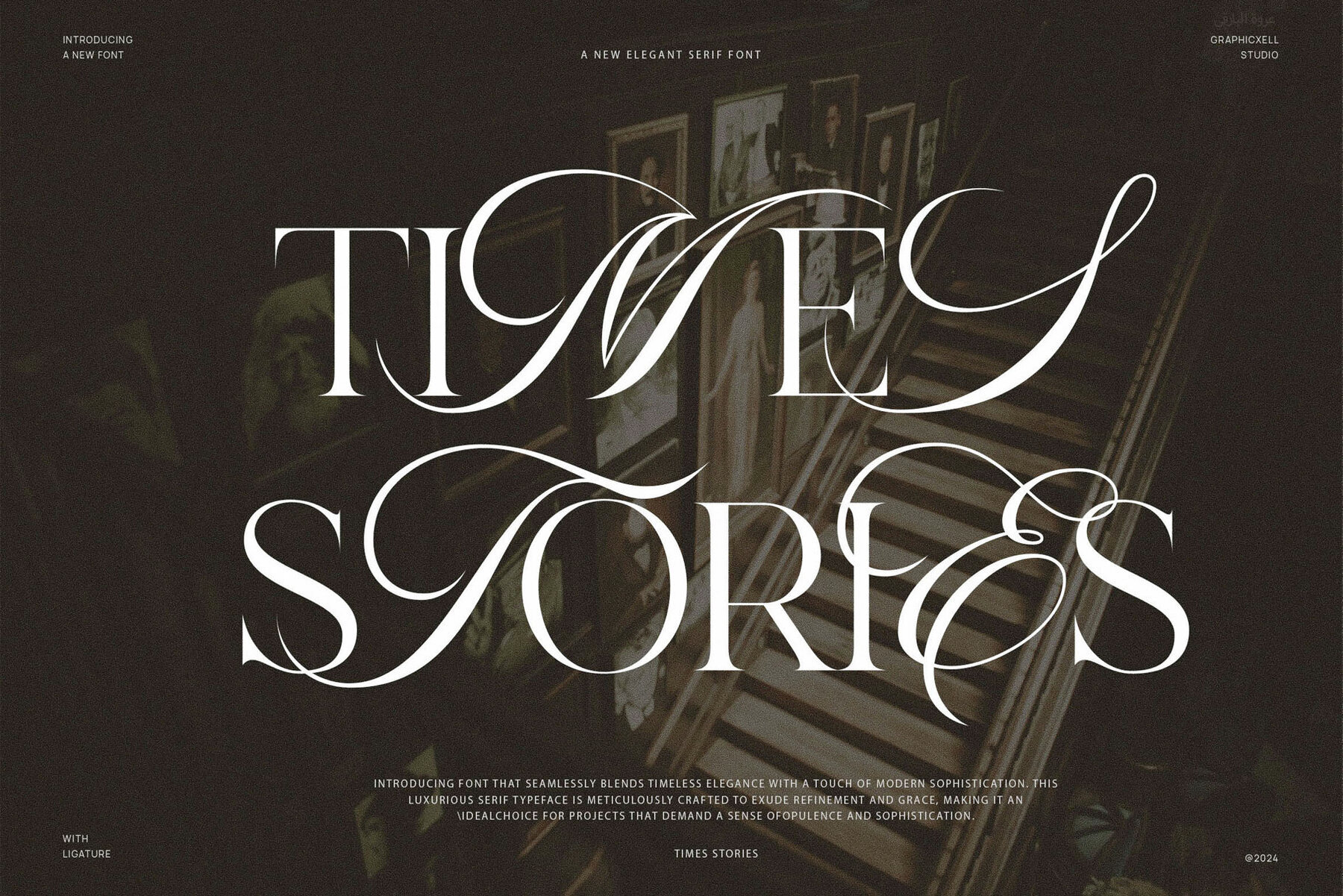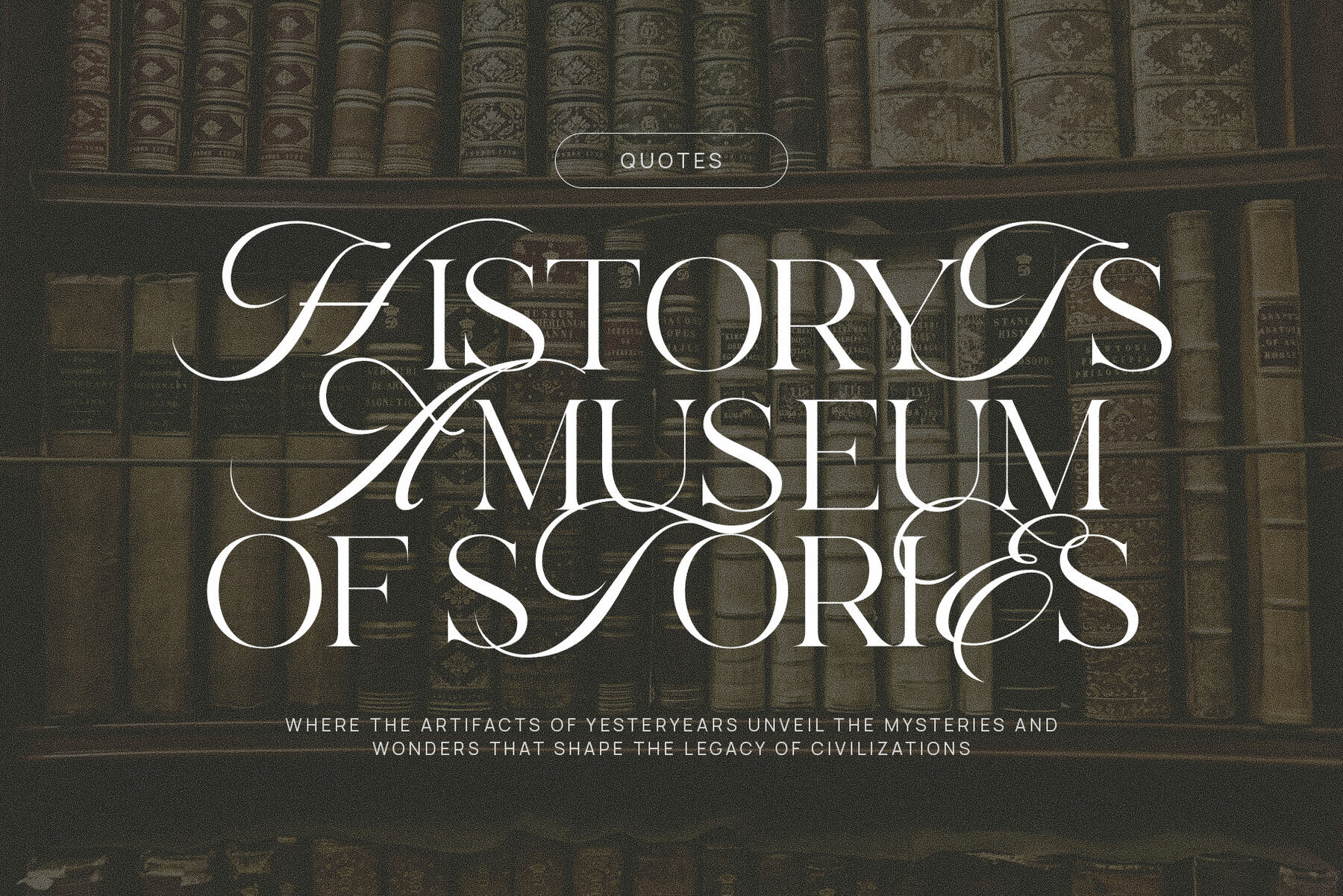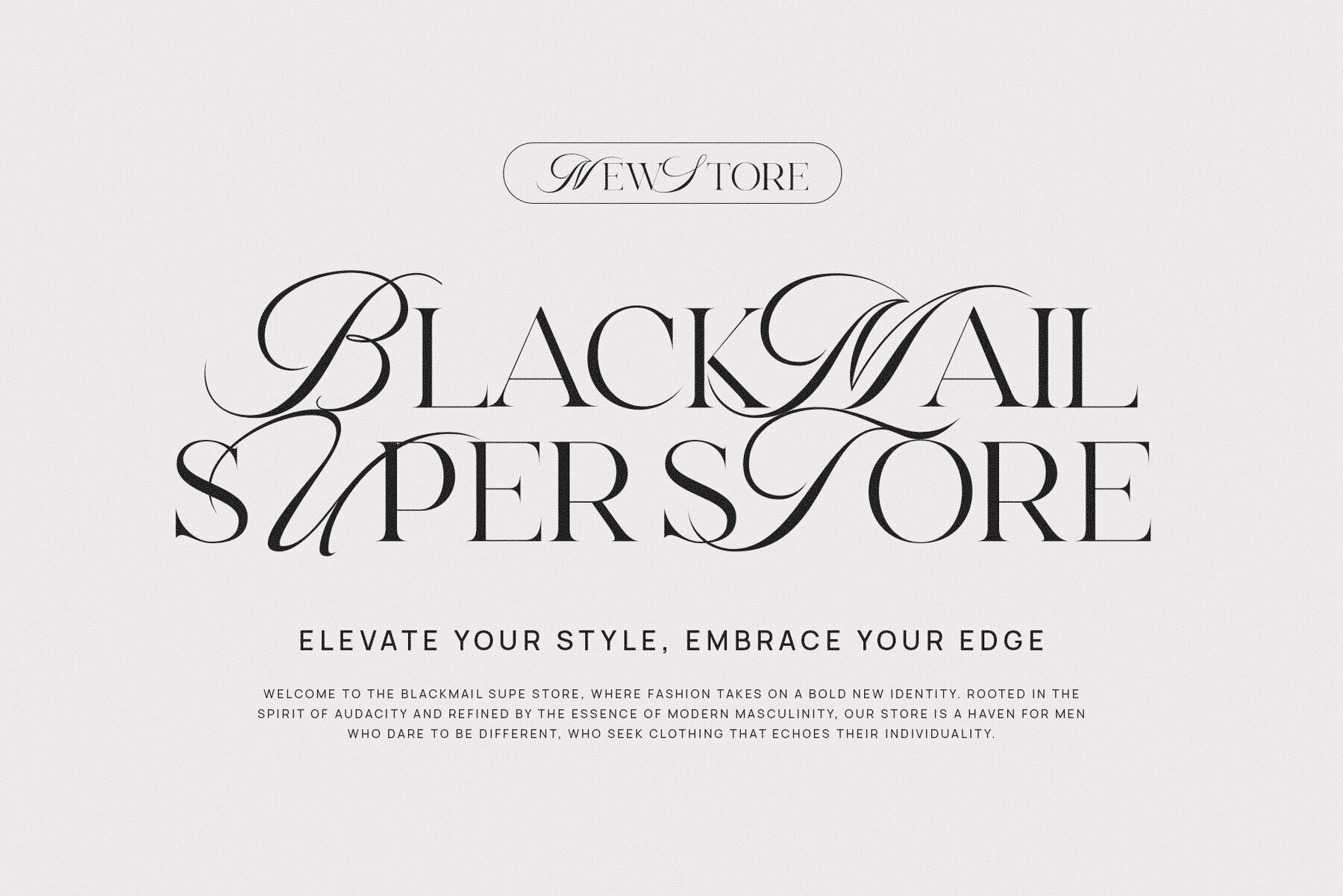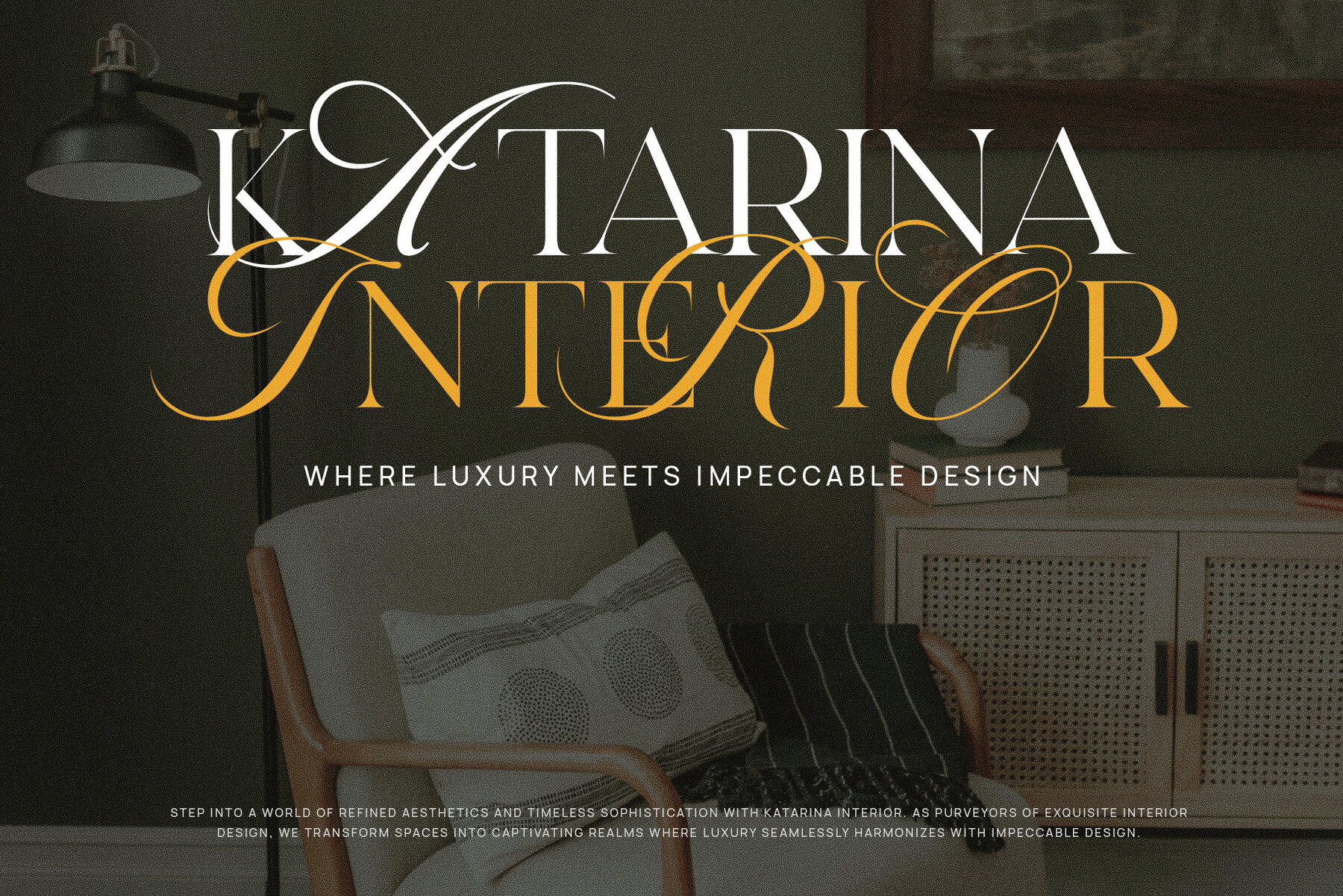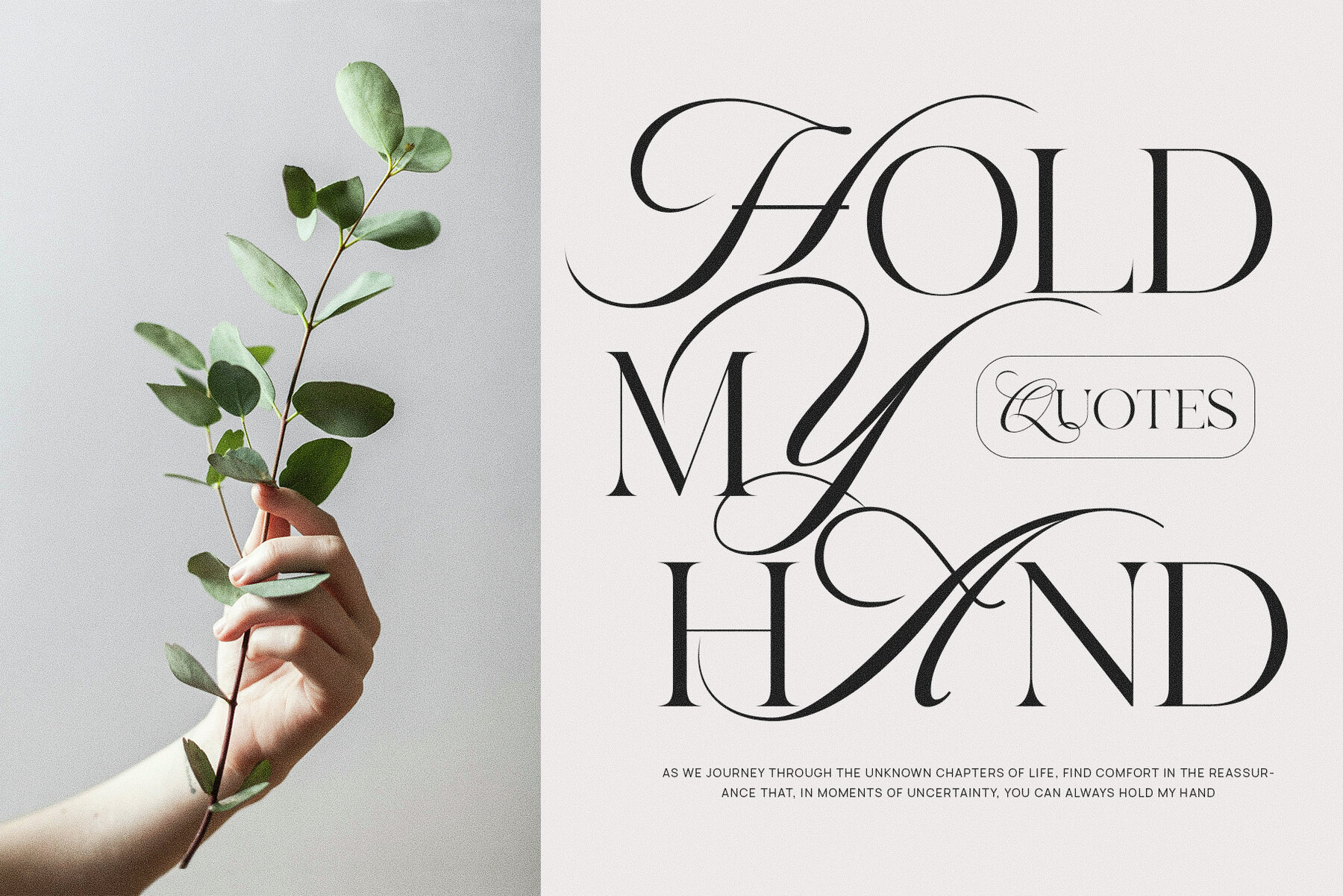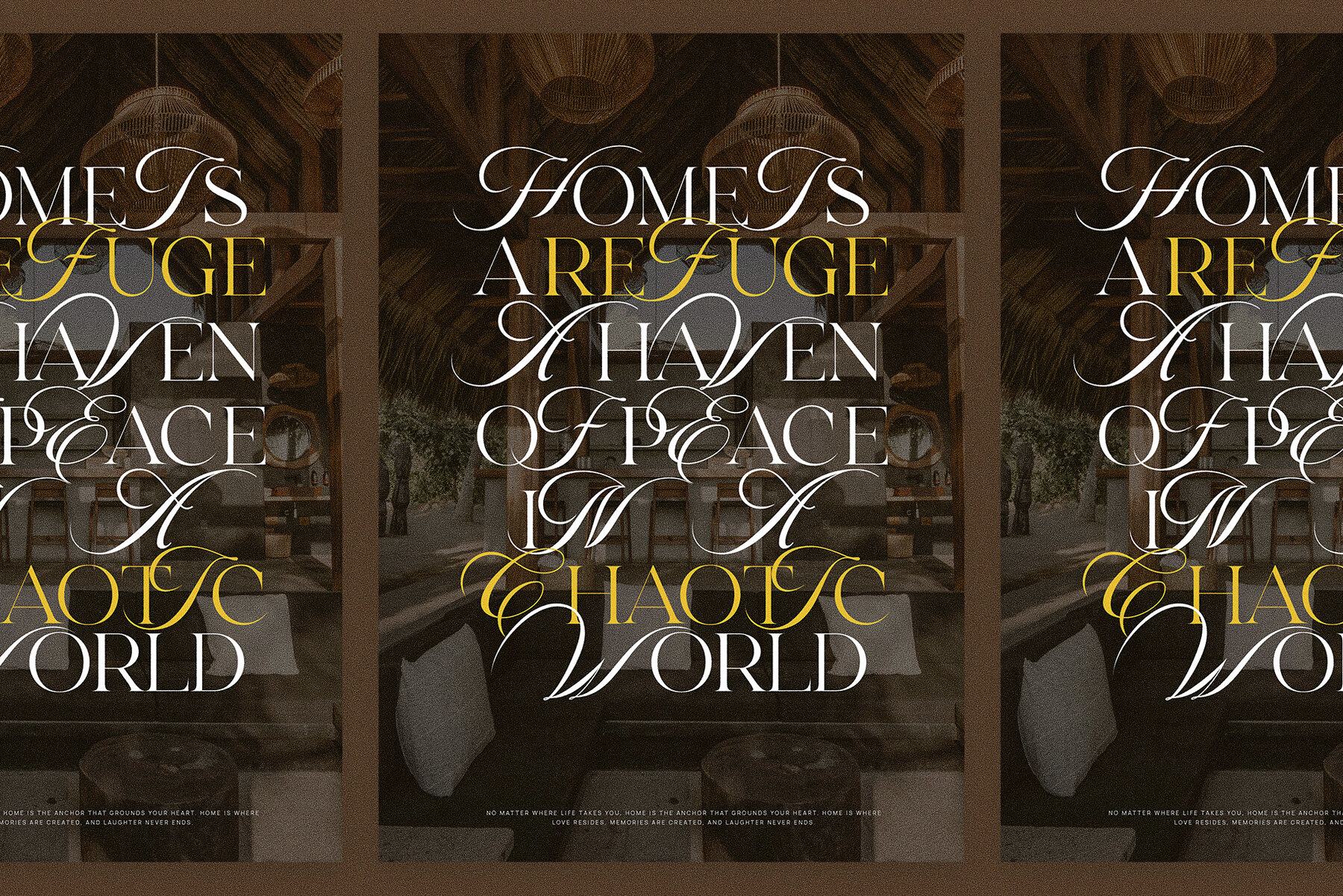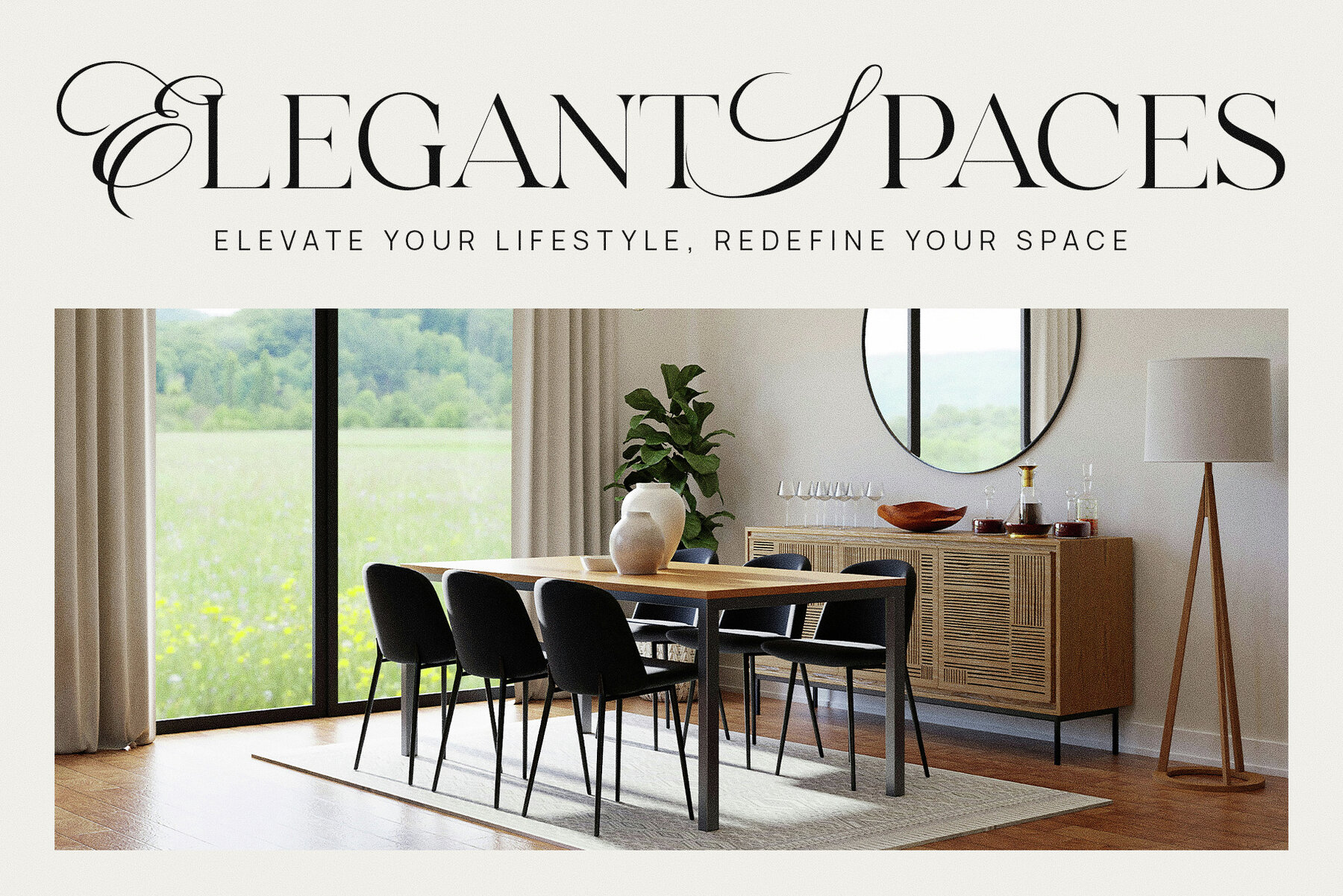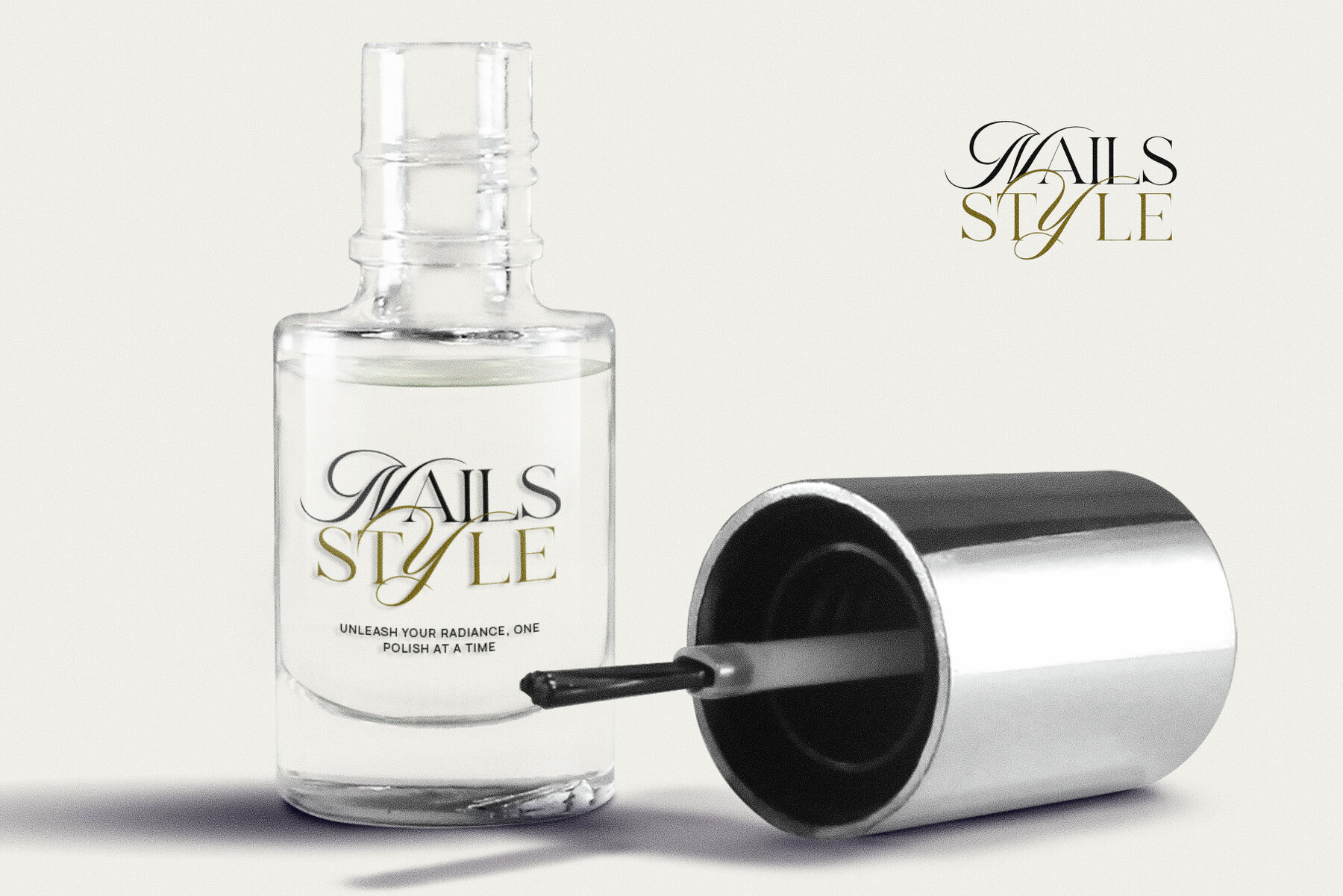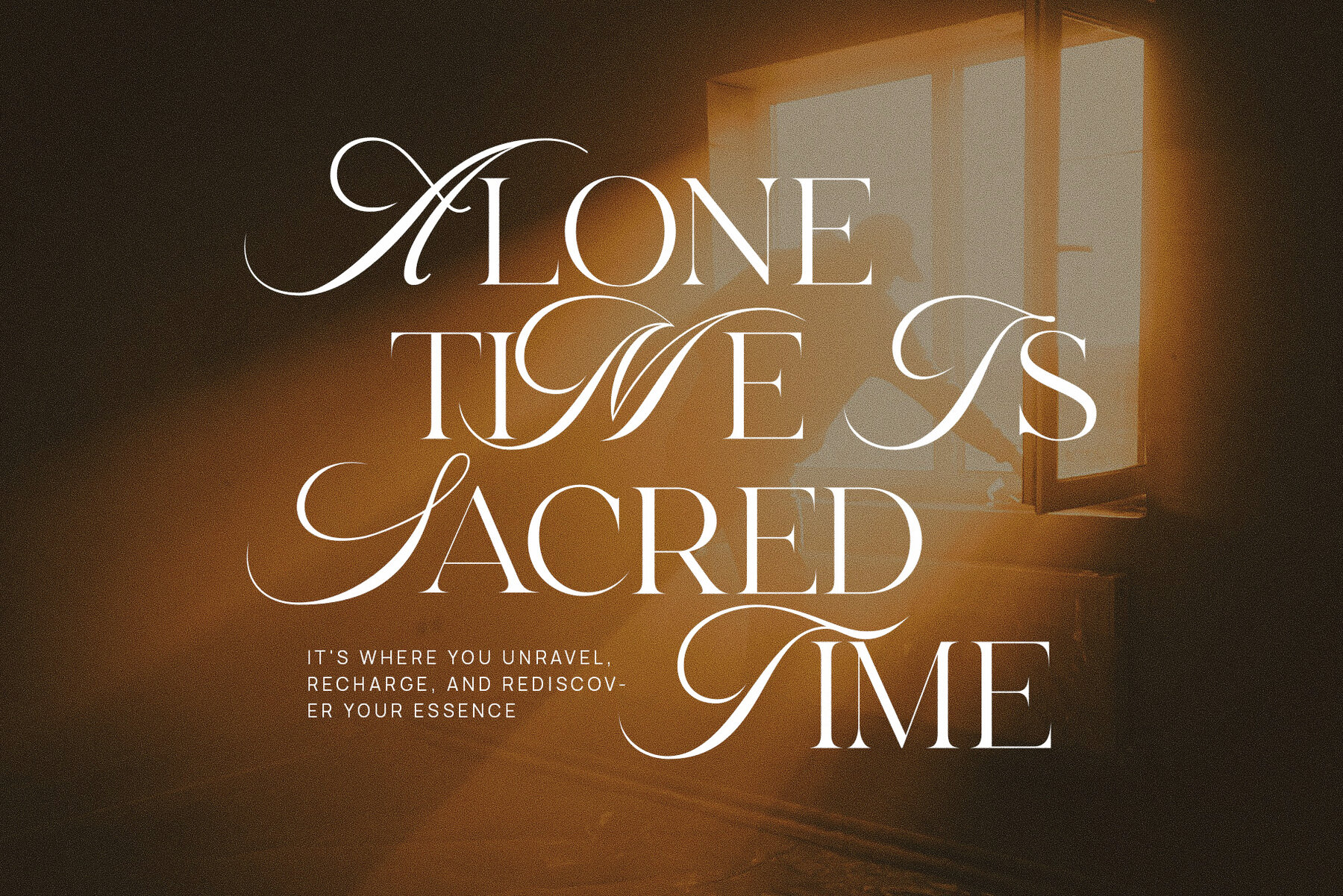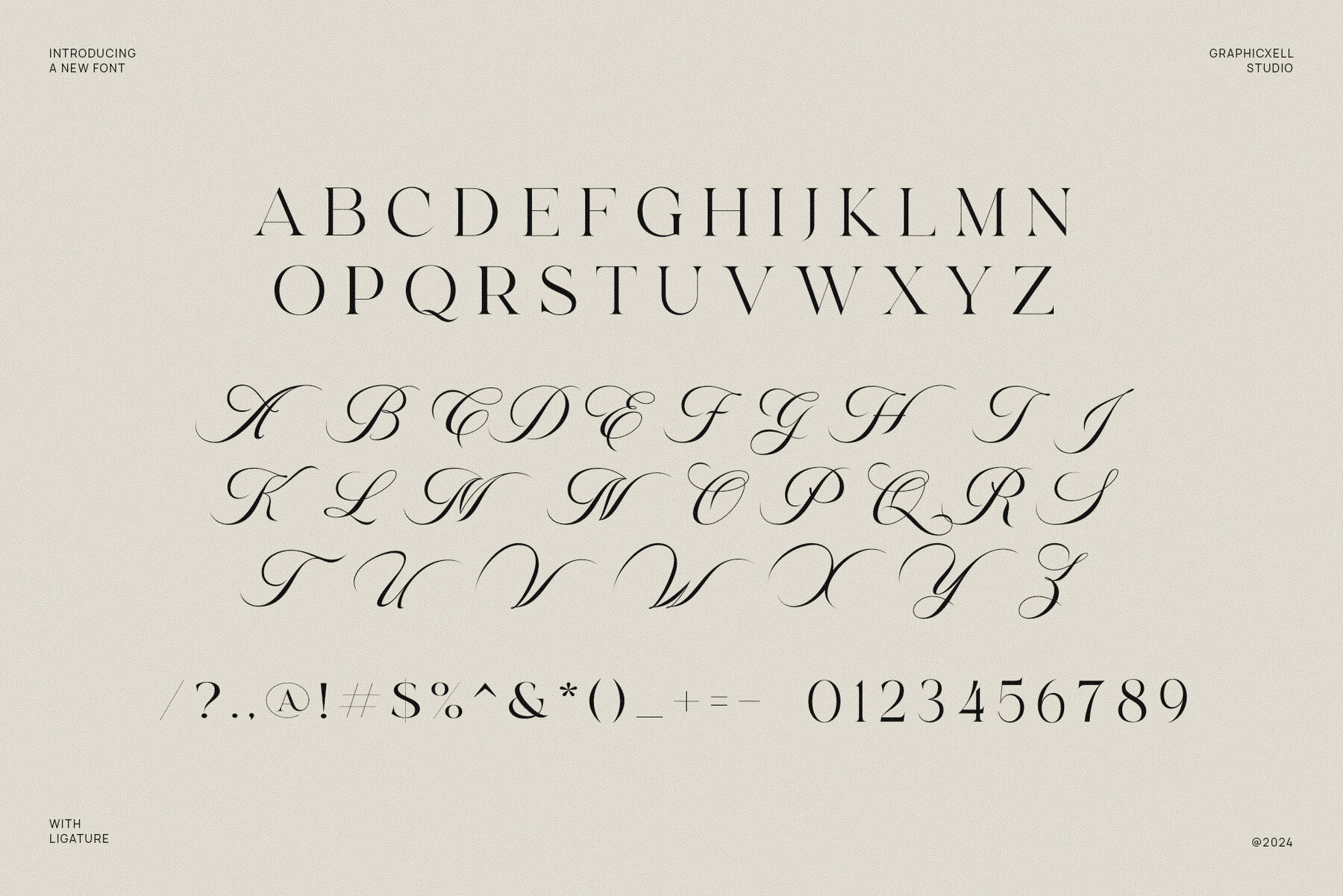
Times Stories Font
Times Stories Regular
Times Stories Serif and Calligraphy is a kind of creative font. With a unique style, this font looks elegant, making it a good investment for any graphic designer.
The counter-strokes at each end look very sharp, creating a deep impression. This font also comes with different line thicknesses of the lines in the curves of the line shapes.
The combination of a modern style and classy look also makes this font suitable for anyone who works on digital projects and needs a unique typeface.
Whether you want to use it for branding projects or wedding designs, this serif font and calligraphy will create a sophistication.
Times Stories Serif and Calligraphy is also recommended for other projects including social media posts, logos, ads, product packaging, photography, product designs, watermarks, etc.
What makes it versatile is the high level of readability. So, there’s no worry about using it for different purposes.
This font has a very distinctive style. So, it can easily impress your audience with this calligraphy. Of course, you will not be disappointed to try using this classy font.